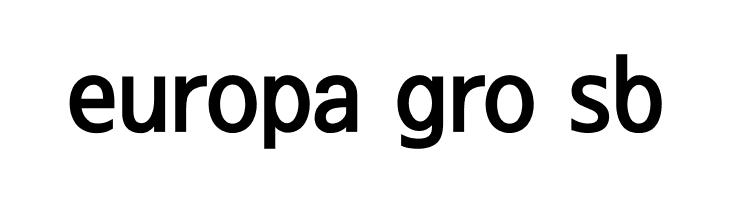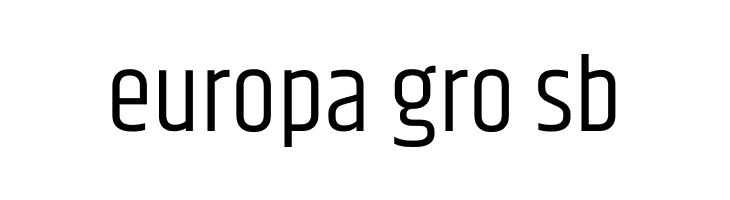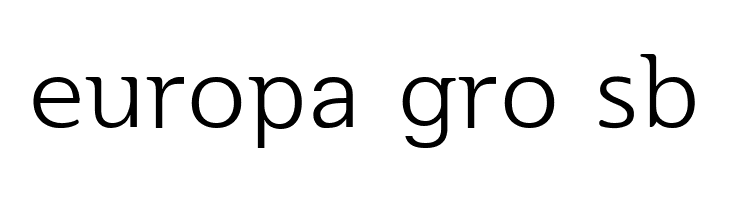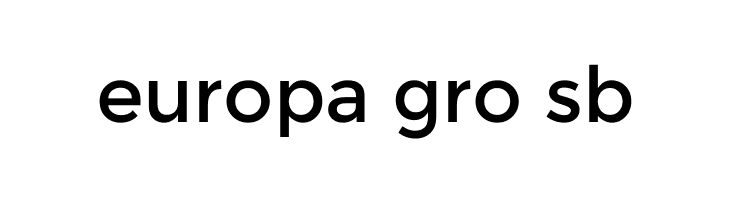
A modern, clean sans-serif font with uniform stroke width and excellent readability.
A modern sans-serif font with clean, uniform strokes and excellent readability.
A modern, geometric sans-serif font with a clean and compact design.
A clean, modern sans-serif font with semi-light weight and slightly condensed characters.
A modern, light, and slightly condensed sans-serif font with clean lines.
A modern, clean sans-serif font with consistent stroke width and balanced spacing.
A modern sans-serif font with clean lines and medium contrast, perfect for versatile use.
A clean, modern sans-serif font with uniform stroke width and excellent readability.
A modern, clean sans-serif font with uniform strokes and excellent readability.
A sleek, modern sans-serif font with thin, elegant lines.